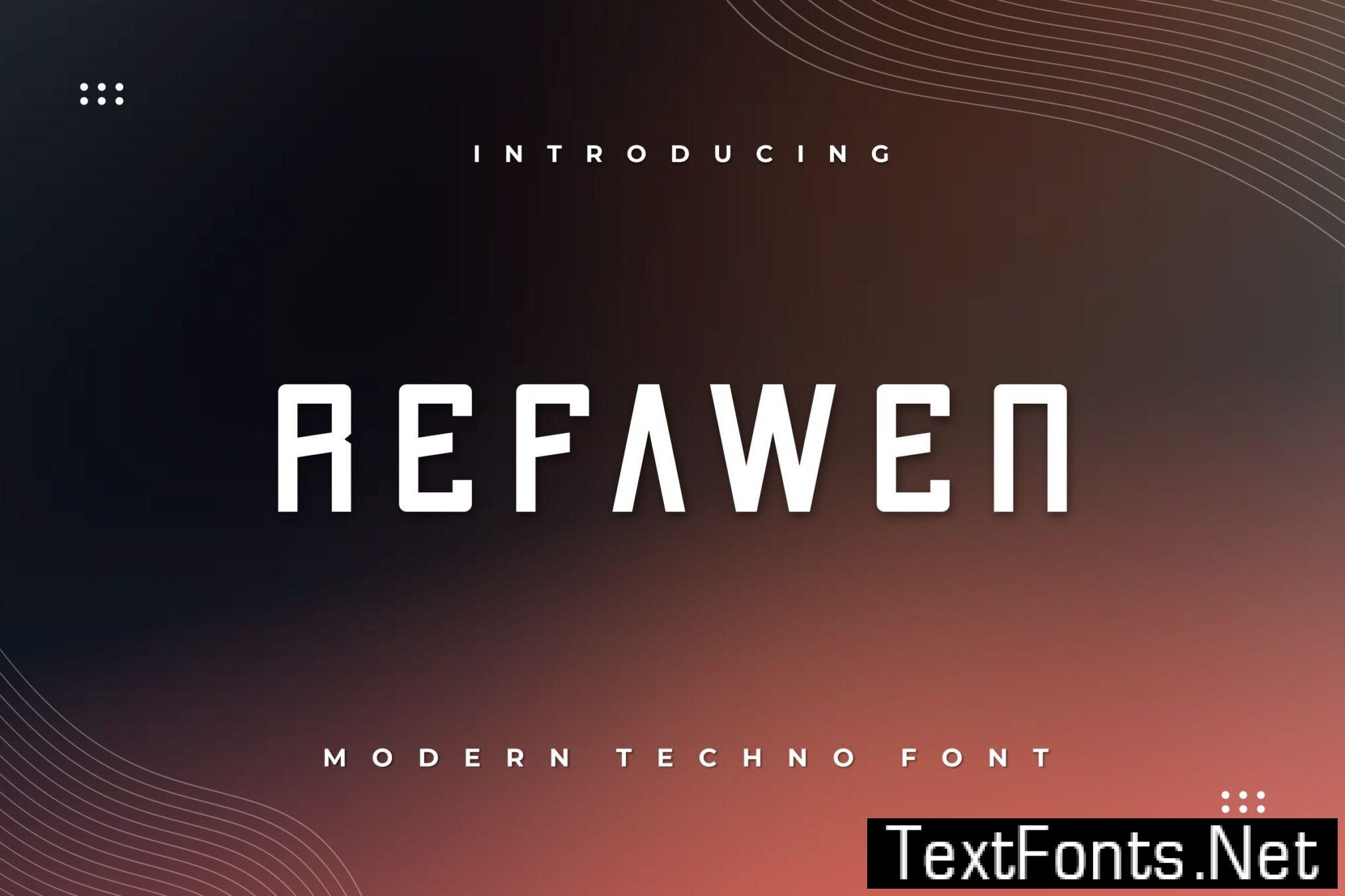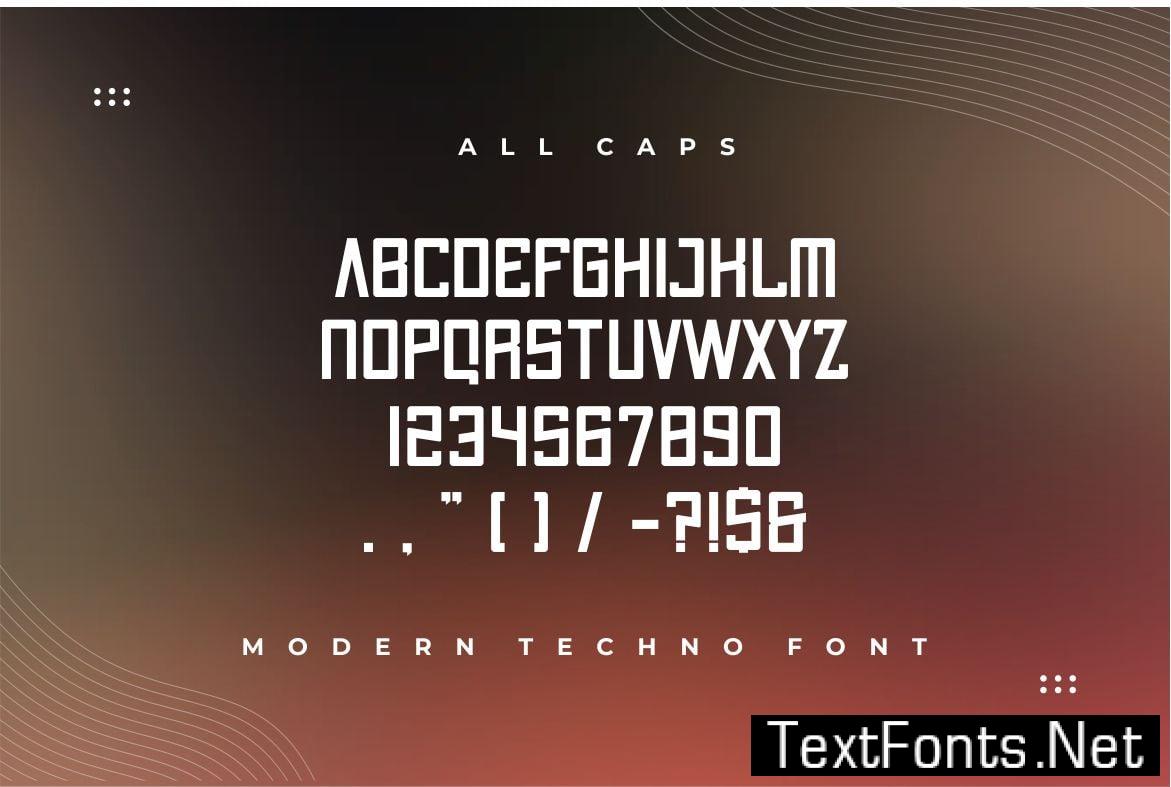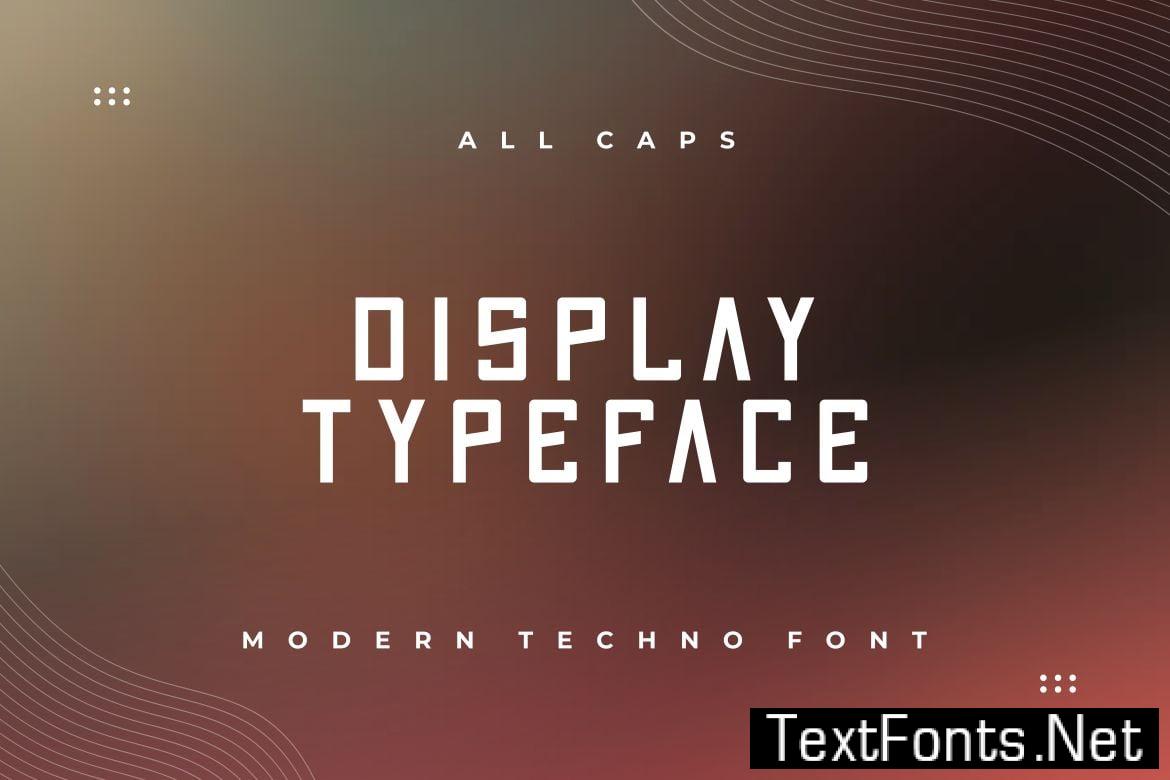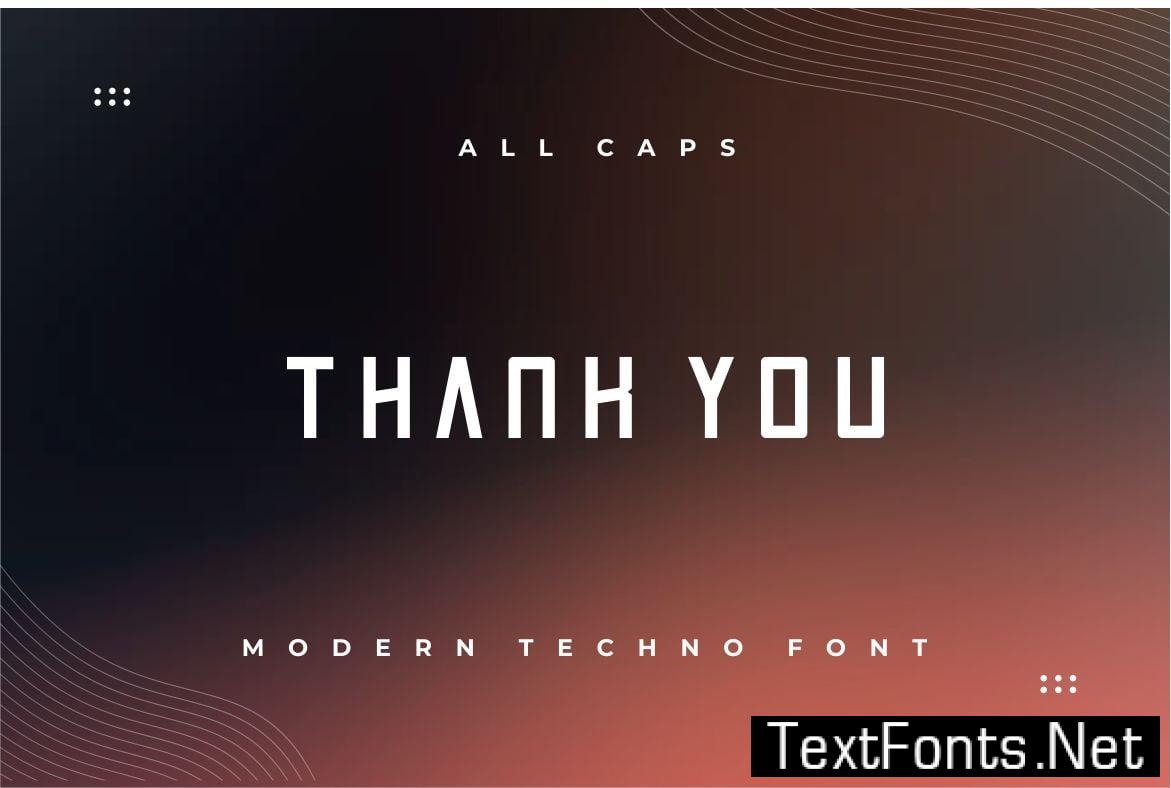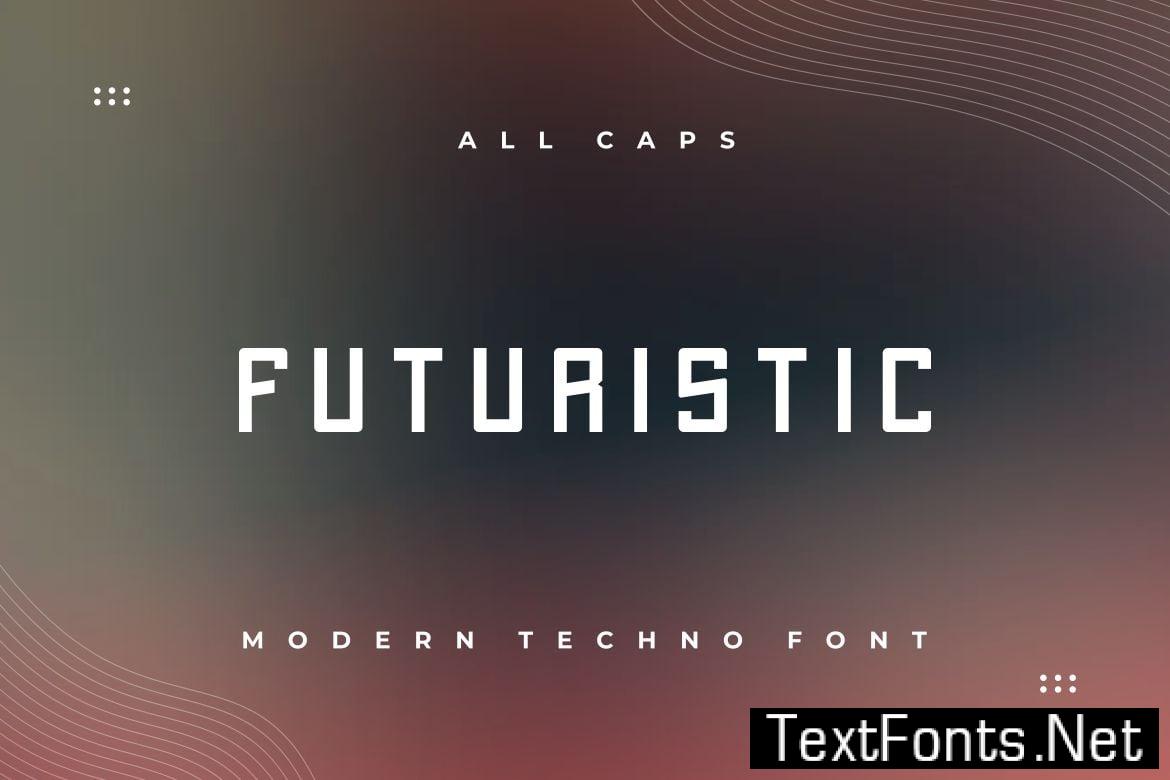
Introducing our new product **Refawen Font** – Modern Font
**Refawen Font** – Modern Font is a bold and authentic display font. The font is suitable for any branding project like logo, esport, and many more. outstanding in a wide range of contexts.